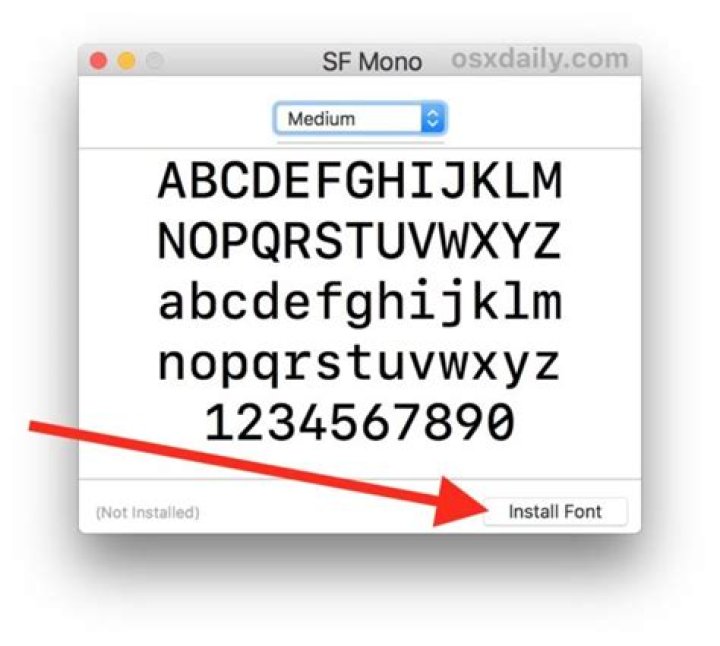
Is it possible to install the SF Mono font, which I understand is standard in Apple's Xcode app, on a Windows machine? (Windows 10 in my case). It is a very pretty font, and it looks to me like it solves more of the programming font problems than any other font that I have used.
In particular, it not only addresses the usual programming font issues -- readable in smaller sizes, horizontally compact, distinguishing capital Os from zeros, 1-I-l, and so forth, it also does a better job of allowing easy discrimination of case. Many programming fonts sacrifice a good bit of ease of case distinction in the course of achieving legibility at smaller size. This is of particular importance to me as I do most of my programming work in R, or less often C++, both of which case sensitive.